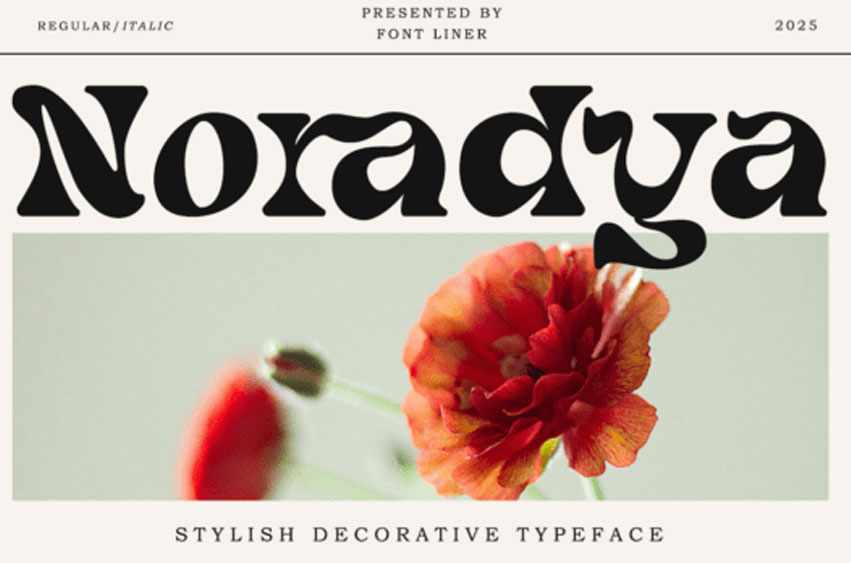
Noradya Font is a stylish serif font with a bold and artistic decorative typeface designed to make your design projects stand out with unique flair.
With its unique curves and expressive serifs, Noradya blends classic charm with modern creativity, making it perfect for eye-catching headlines, editorial design, product packaging, branding, and more.